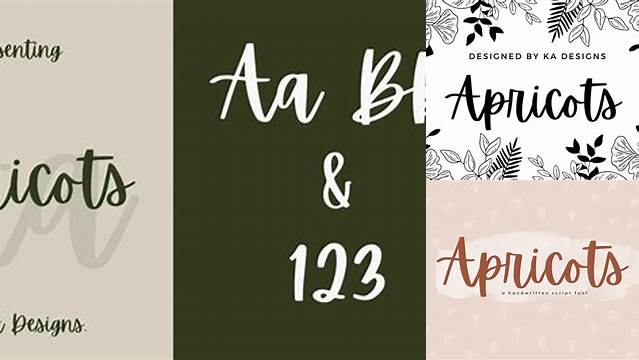
Apricots Regular Font: Your New Design Buddy
Apricots Regular OTF 400 font is a stylish and modern typeface perfect for a wide range of design projects. This font exudes a sense of elegance and sophistication, making it ideal for branding, headlines, invitations, and much more. The clean lines and well-defined letterforms make it incredibly readable, ensuring your message is conveyed clearly and effectively.
Using Apricots Regular in Your Designs
Once you have the Apricots Regular OTF 400 font installed, the creative possibilities are endless. Here's how you can use it:
In Graphic Design
- Logos: Create a professional and memorable logo with the Apricots Regular OTF 400 font.
- Posters: Design eye-catching posters for events, promotions, or announcements.
- Website Graphics: Use it for headlines, subheadings, and other graphic elements on your website.
- Social Media: Create compelling social media posts with this font.
In Print Design
- Business Cards: Make an impression with beautifully designed business cards.
- Invitations: Design elegant invitations for weddings, parties, or other special events.
- Brochures: Use it for headings and body text in brochures.
- Flyers: Design attractive flyers to grab the attention of potential customers.
Pro Tip: Font Pairing
Pair Apricots Regular OTF 400 font with a contrasting font to add depth and visual interest to your designs. Consider pairing it with a sans-serif font for a clean look, or a serif font for a more traditional feel.
Conclusion: Unleashing the Potential of Apricots Regular
So, there you have it! The Apricots Regular OTF 400 font is a powerful tool in your design arsenal. From its elegant aesthetic to its versatility, this font can bring your creative visions to life. Remember to download it from a trusted source, install it correctly, and always respect the licensing terms. With a little practice, you'll be crafting stunning designs in no time! Happy designing!